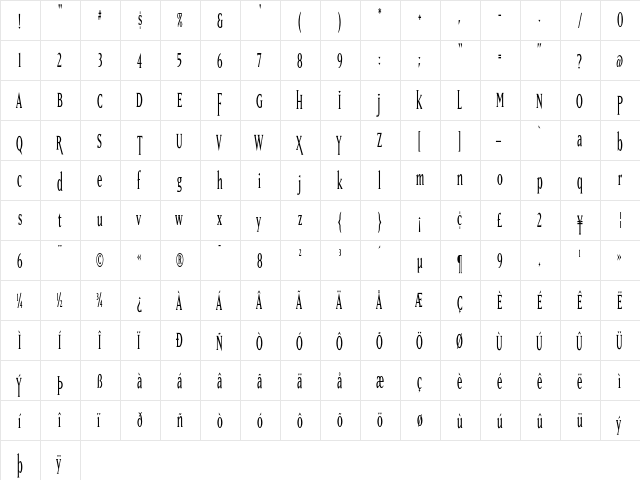
MatrixTall Regular
Design Context for MatrixTall Typeface
MatrixTall takes a measured approach to typography — its balanced proportions and neutral character make it a reliable workhorse for both digital and print work.